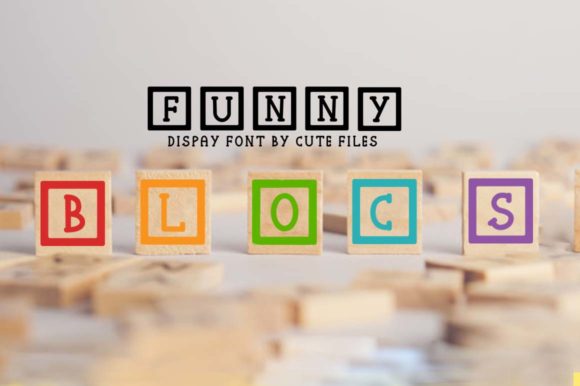
Introducing Funny Blocs Font - The Playful Dingbat Typography Inspired by Children's Cubes
Are you looking for a font that oozes fun, creativity, and a playful ambiance? Look no further than Funny Blocs Font, the captivating dingbat typography that brings a smile to your designs.
Crafted with inspiration from children's cubes, Funny Blocs Font exudes a lighthearted and whimsical vibe. Each character is meticulously crafted to resemble a colorful and playful cube, inviting your imagination to soar.
With Funny Blocs Font, you'll unlock a world of creative possibilities. Personalize children's blocks with unique names or ages for themed birthday parties. Create fun exercises to engage little learners, helping them grasp the joy of reading. The possibilities are endless!
And as an added bonus, Funny Blocs Font comes with a set of digital papers featuring vibrant and playful block designs. These papers are the perfect complement to your creations, allowing you to add a touch of visual zest to your projects.
Unlock Your Creativity with Funny Blocs Font
- Inspire Joyful Designs: Infuse your designs with a sense of fun, creativity, and lightheartedness.
- Personalize Children's Toys: Create customized blocks with names, ages, or playful messages for memorable birthday parties or educational activities.
- Engage Little Learners: Design interactive and engaging exercises that make learning an enjoyable experience for young minds.
- Endless Creative Possibilities: Let your imagination run wild with Funny Blocs Font and explore a world of creative possibilities.
Dive into the world of Funny Blocs Font today and unleash your creativity. Experience the magic of playful typography and let your designs shine with joy and whimsy!